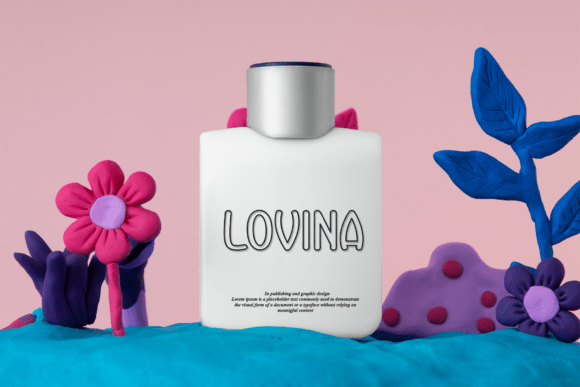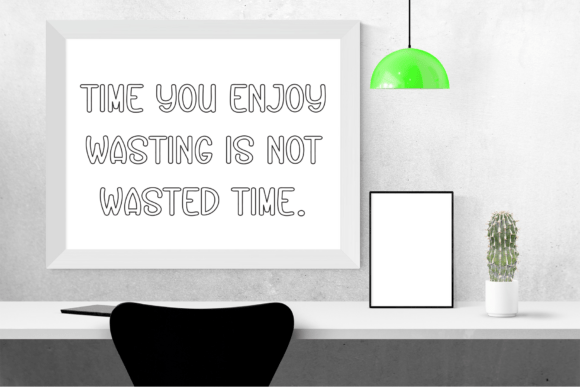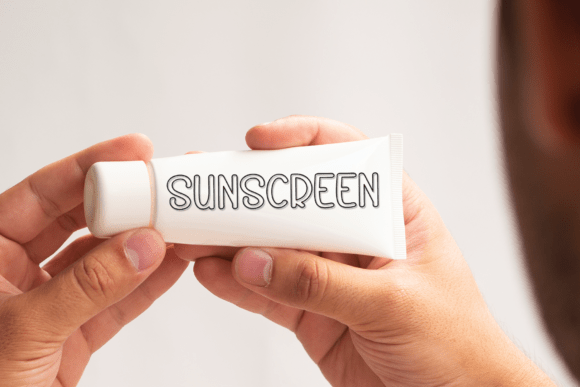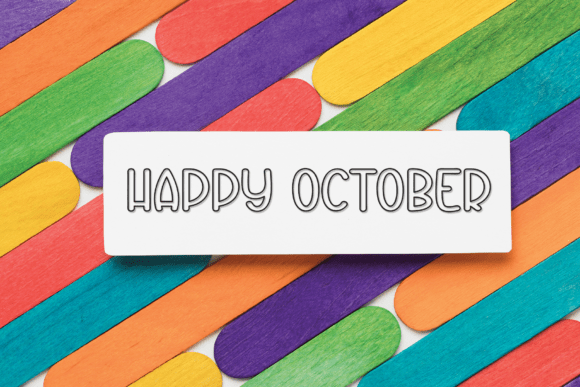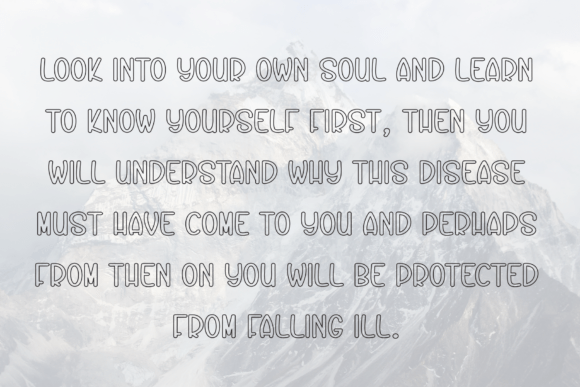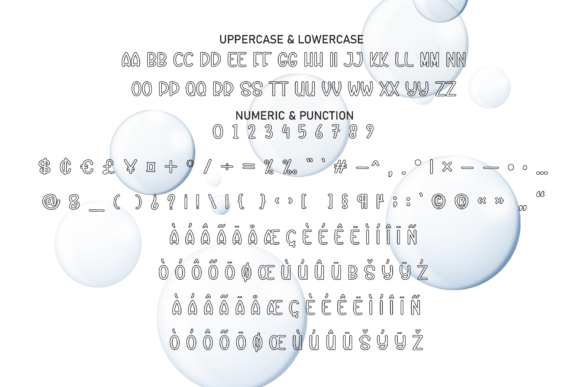
Designing with Joy: The Magic of the Bubble Balloon Font
Remember the thrill of browsing through a stationery store as a child, mesmerized by the colorful array of greeting cards and invitations? The whimsical fonts, playful illustrations, and cheerful colors transported you to a world of pure imagination. As designers, we strive to recreate that same sense of wonder in our work.
Enter the Bubble Balloon Font, a handcrafted display font that embodies the essence of childhood joy. With its sweet allure and inviting charm, this font is perfect for elevating wedding invitations, greeting cards, or any design project that requires a touch of whimsy. Whether you’re a seasoned designer or just starting out, the Bubble Balloon Font is a valuable addition to your toolkit, offering a unique and delightful way to add personality to your work.
Bubble Balloon Font Key Features
- Unique Characteristics: Features a playful, hand-drawn design with a mix of bubble and balloon-inspired elements
Bubble Balloon Font Review
Overall, I found the Bubble Balloon Font to be a unique and playful addition to any design project. The rounded, bubbly shape of the letters ✨ adds a sense of whimsy and fun, making it perfect for children’s books, party invitations, or other lighthearted applications.
The font is highly customizable, allowing users to adjust the size, color, and spacing to fit their specific needs. The high-resolution images ensure that the font looks great at various sizes, from large banners to tiny text.
- Unique, playful design ✨
- High-resolution images
- Works well for children’s projects, party invitations, and other lighthearted applications
Limitsations:
- May be difficult to read at very small sizes ⚠️
- May not be suitable for formal or professional applications
- Can be overwhelming if used in large quantities
Overall, I would recommend the Bubble Balloon Font for designers looking to add a playful touch to their projects. While it may have some limitations, its unique design and high level of customization make it a great choice for the right applications.
Getting the Most Out of the Bubble Balloon Font
To get the most out of the Bubble Balloon Font, consider the following tips:
- Use it for playful and creative designs.
- Pair it with other fonts for a unique and eye-catching look.
The Bubble Balloon Font is commonly used for:
- Party invitations and decorations.
- Children’s book illustrations and designs.